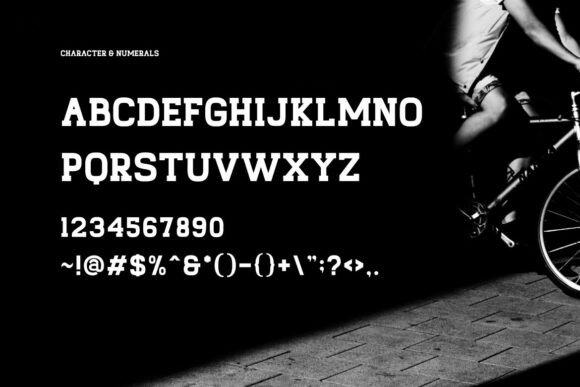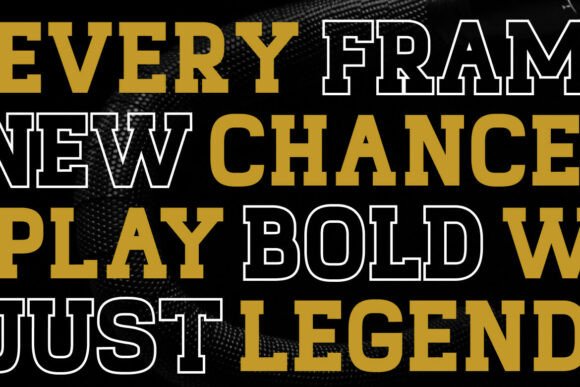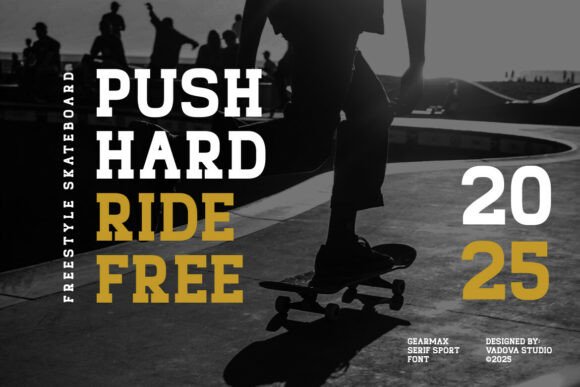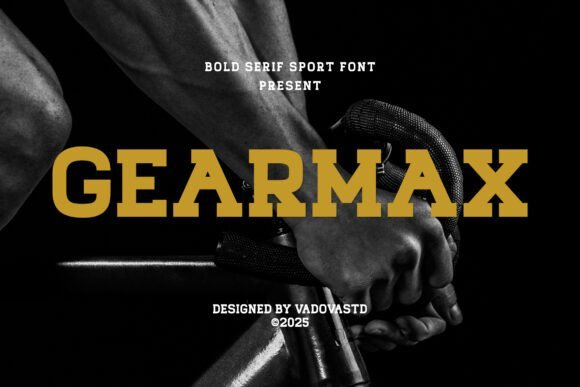
Introduction to Gearmax Font
Power through your projects with Gearmax, a heavy-hitting bold serif sport font.
This powerhouse typeface features massive, blocky slab-serif letterforms that radiate industrial strength and competitive energy With its rigid, architectural structure and โ€œcollegiate-proโ€ aesthetic, Gearmax is the premier choice for extreme sports branding, high-intensity fitness logos, automotive performance decals, and cinematic โ€œstadium-readyโ€ social media headers.